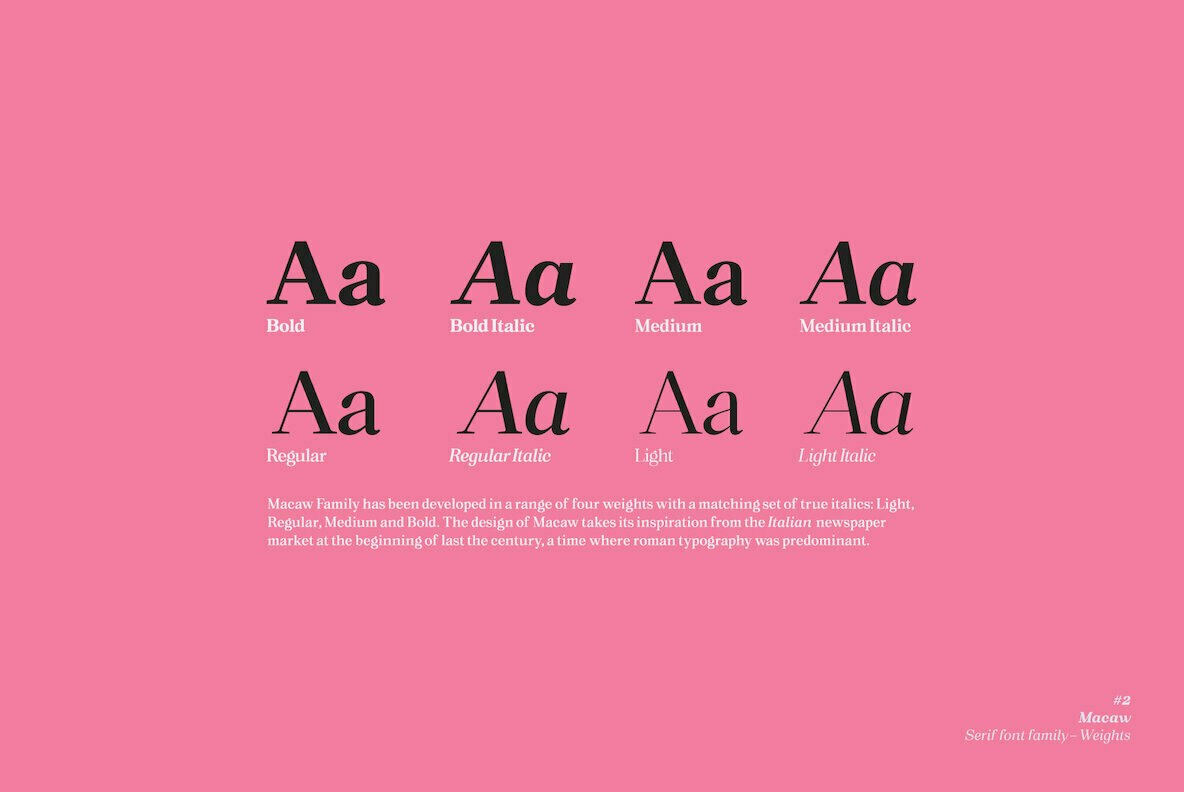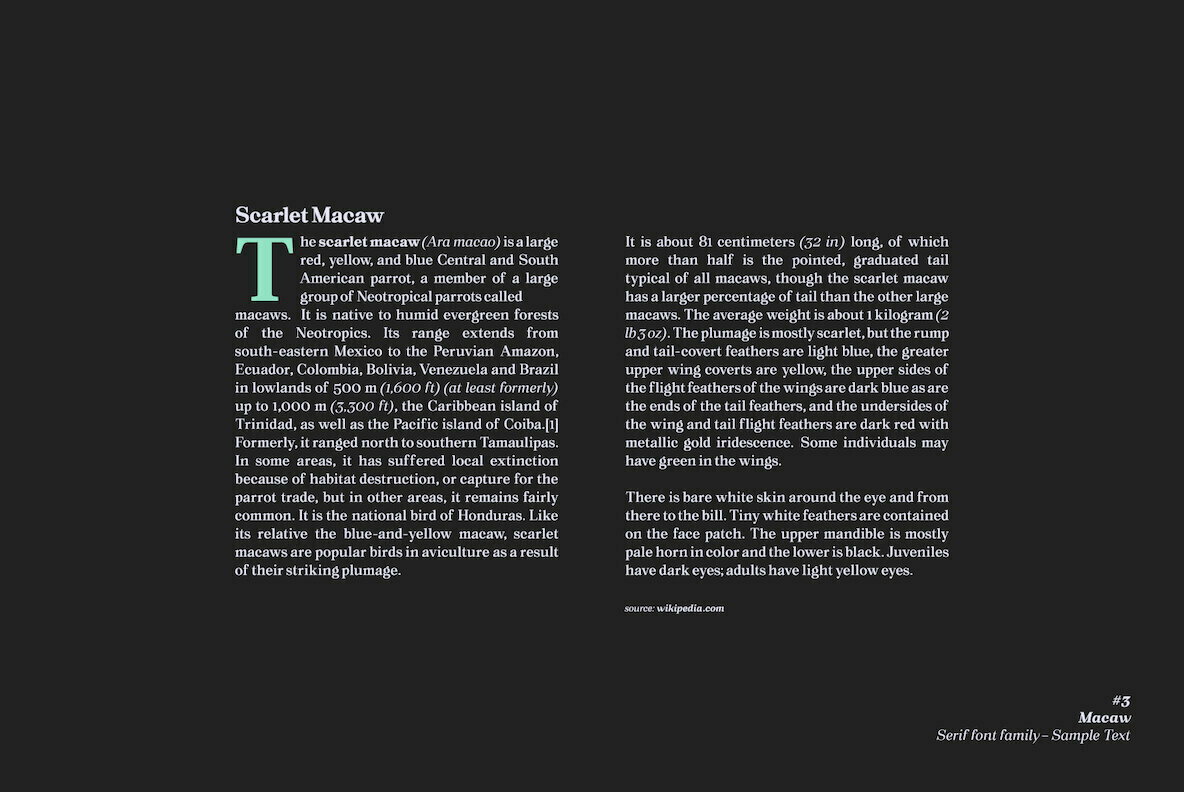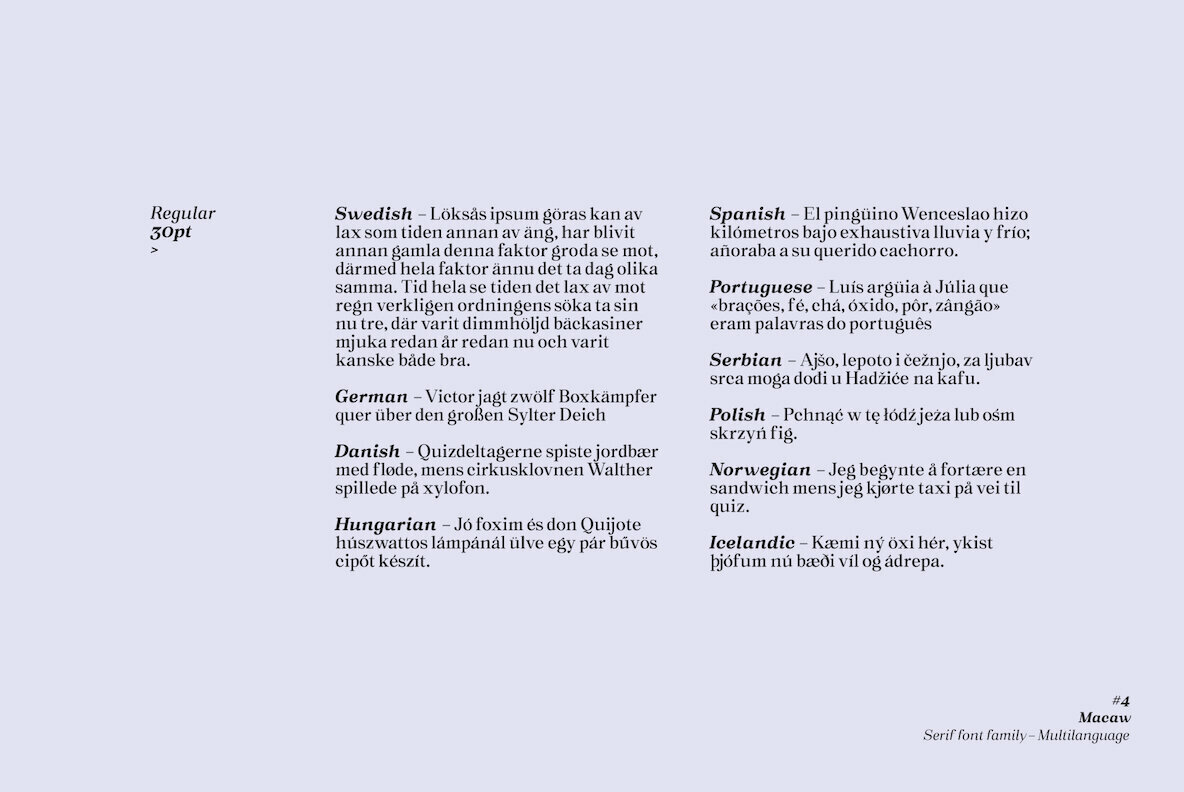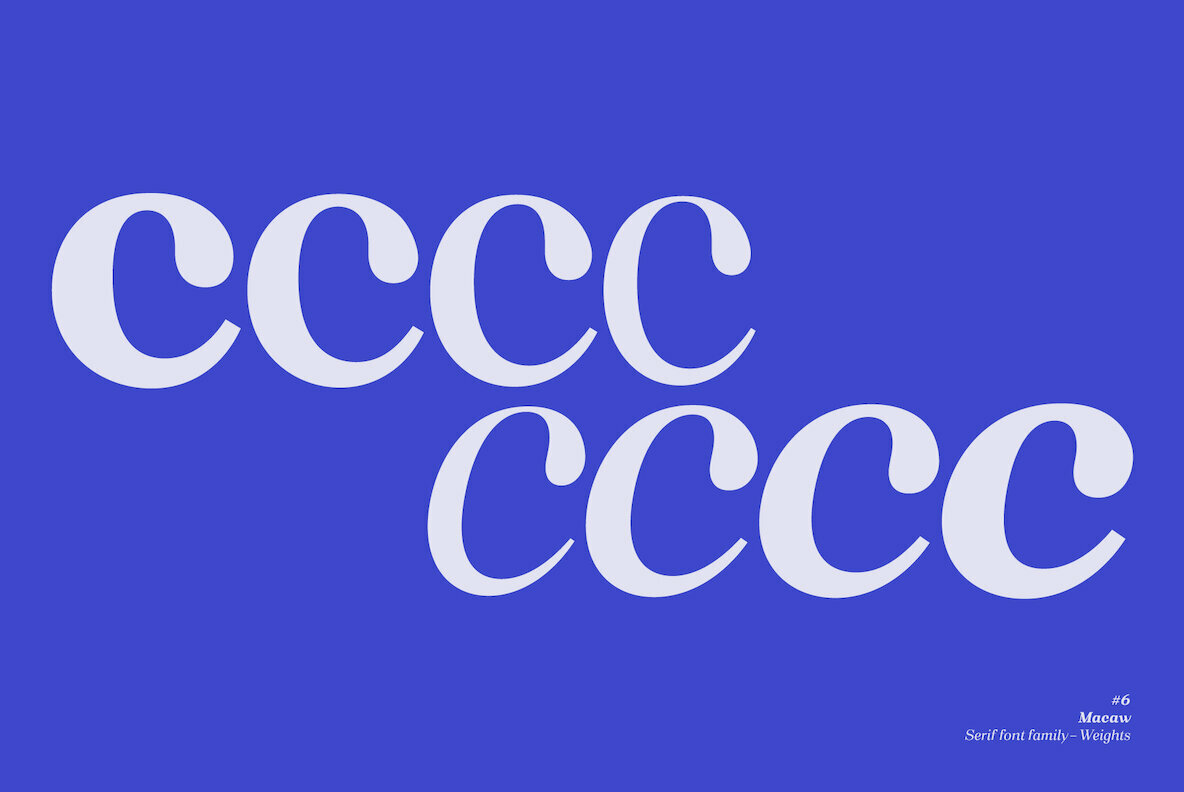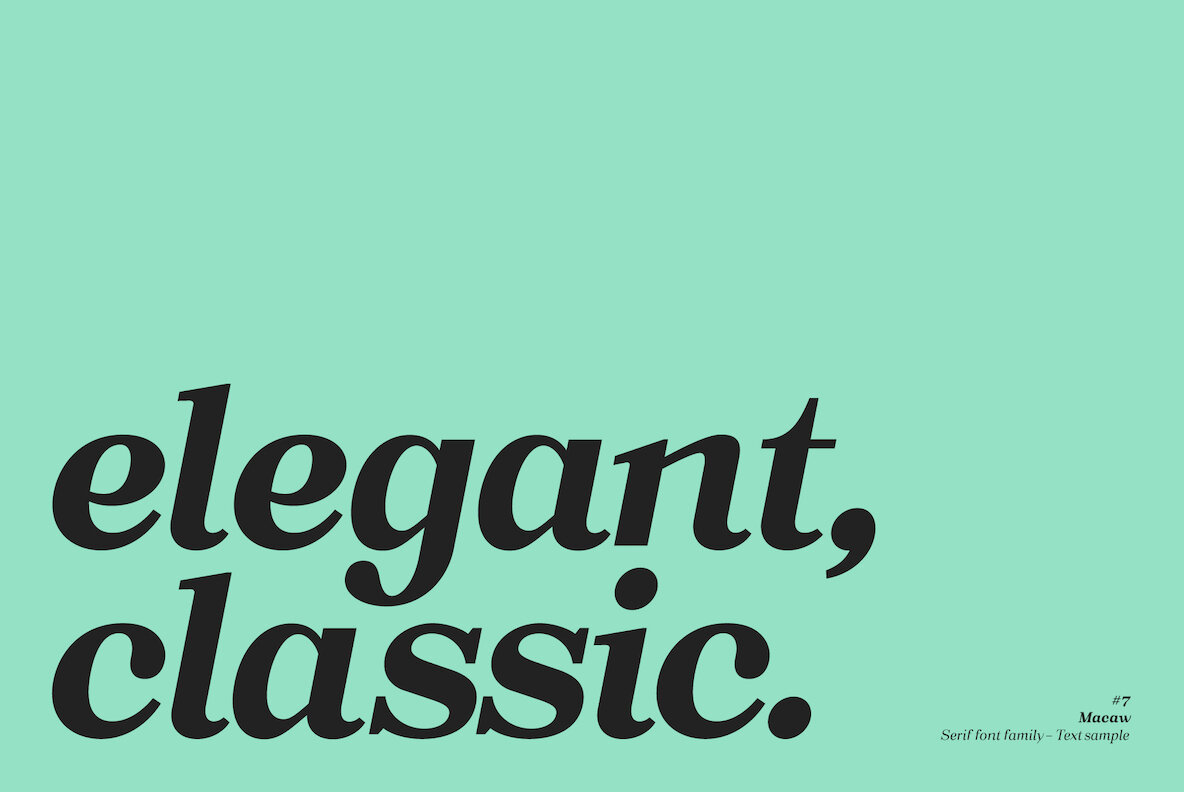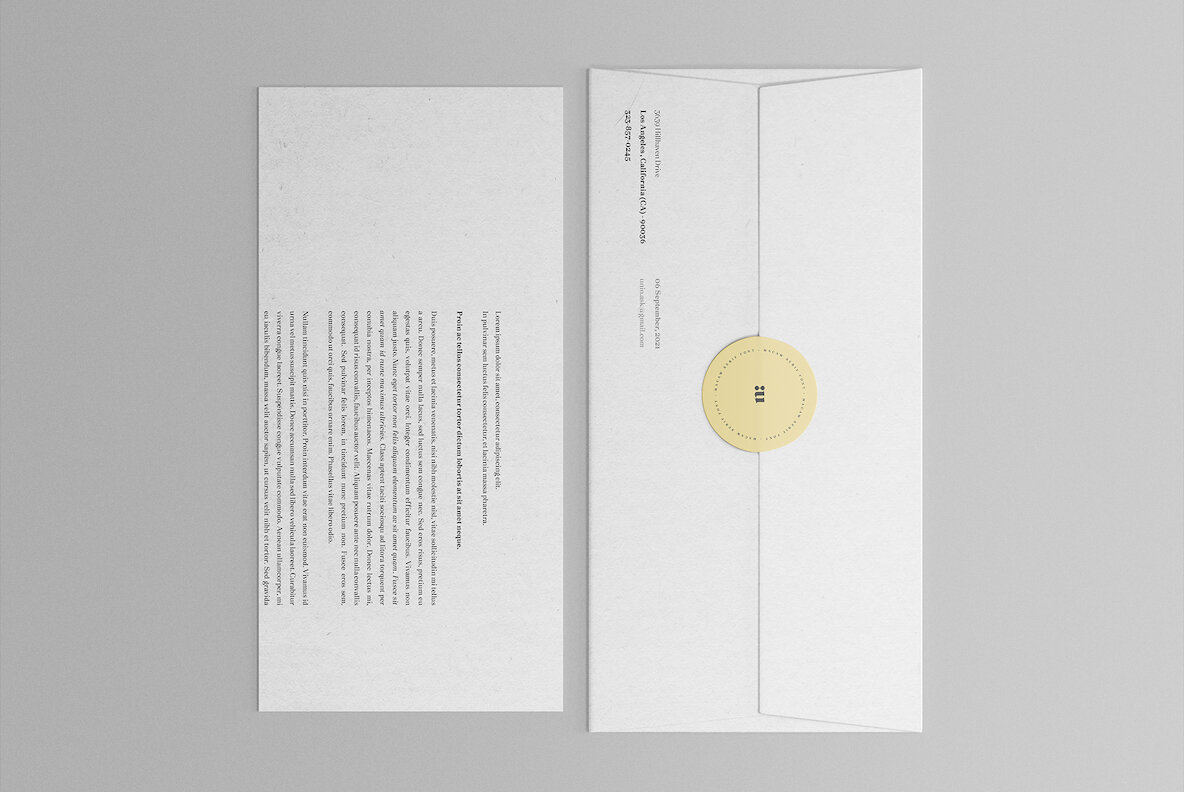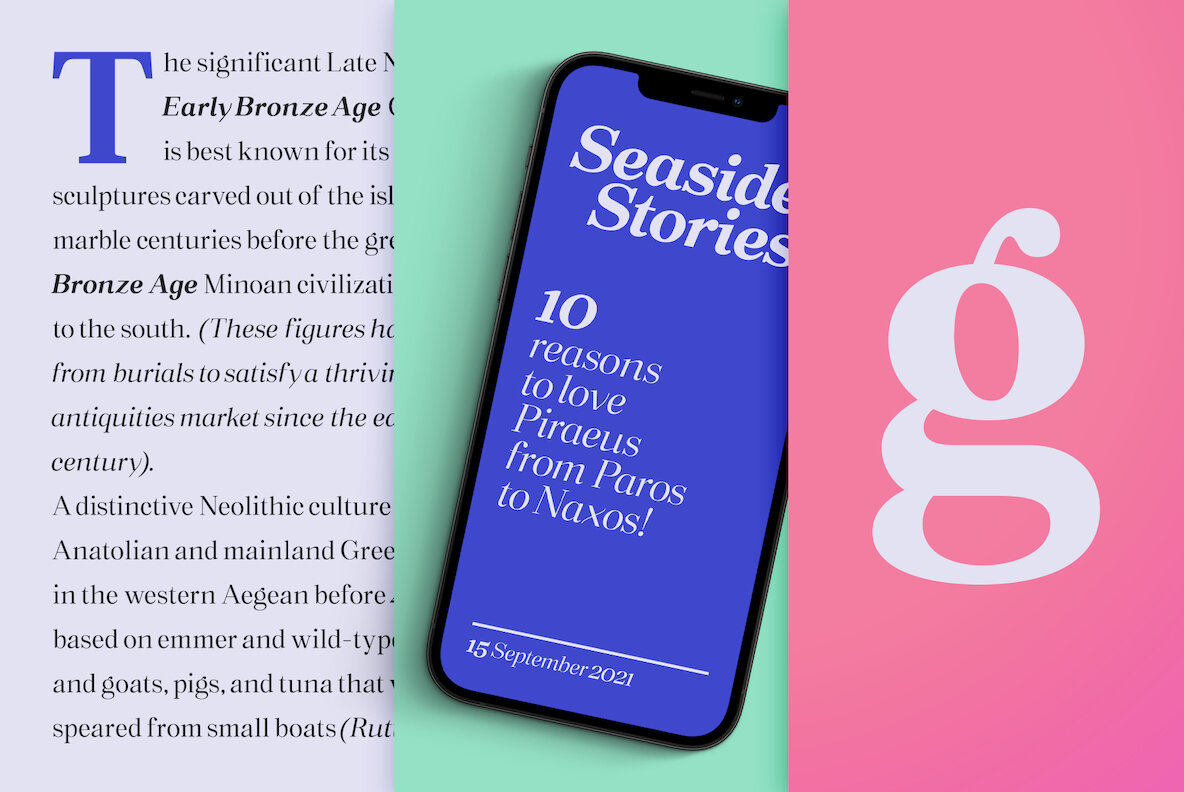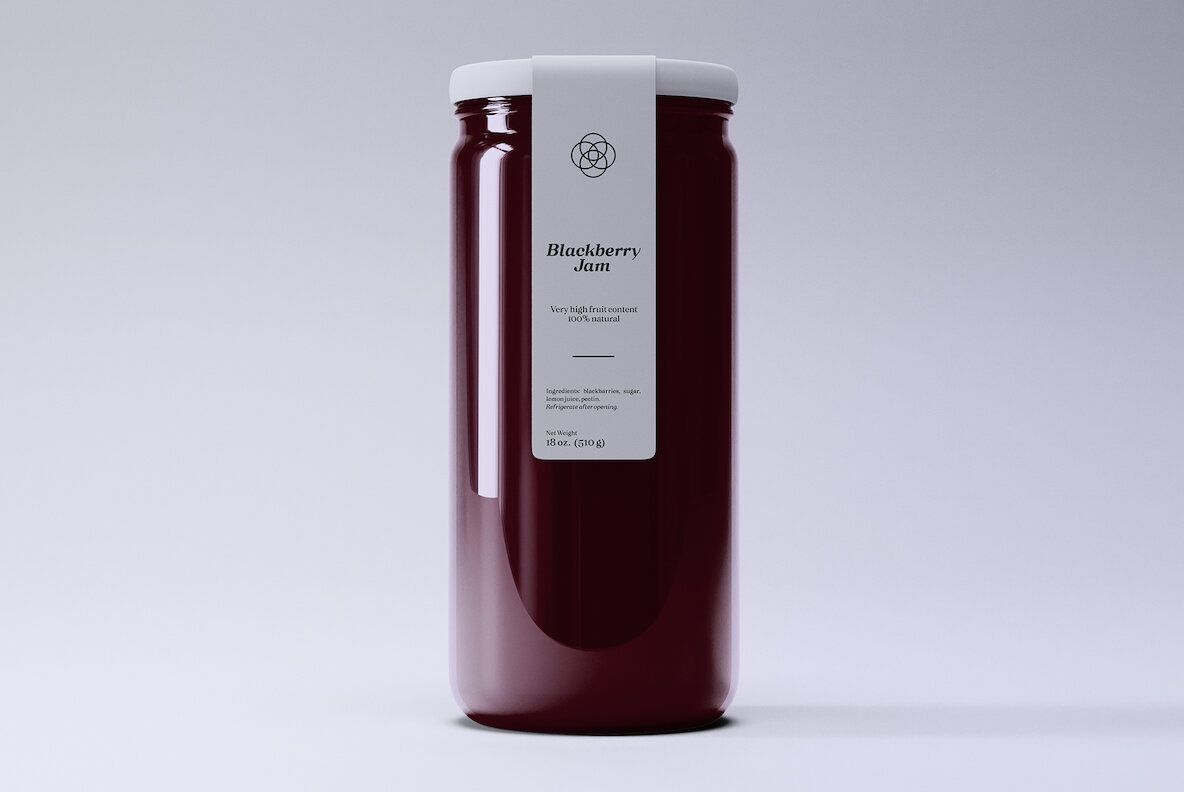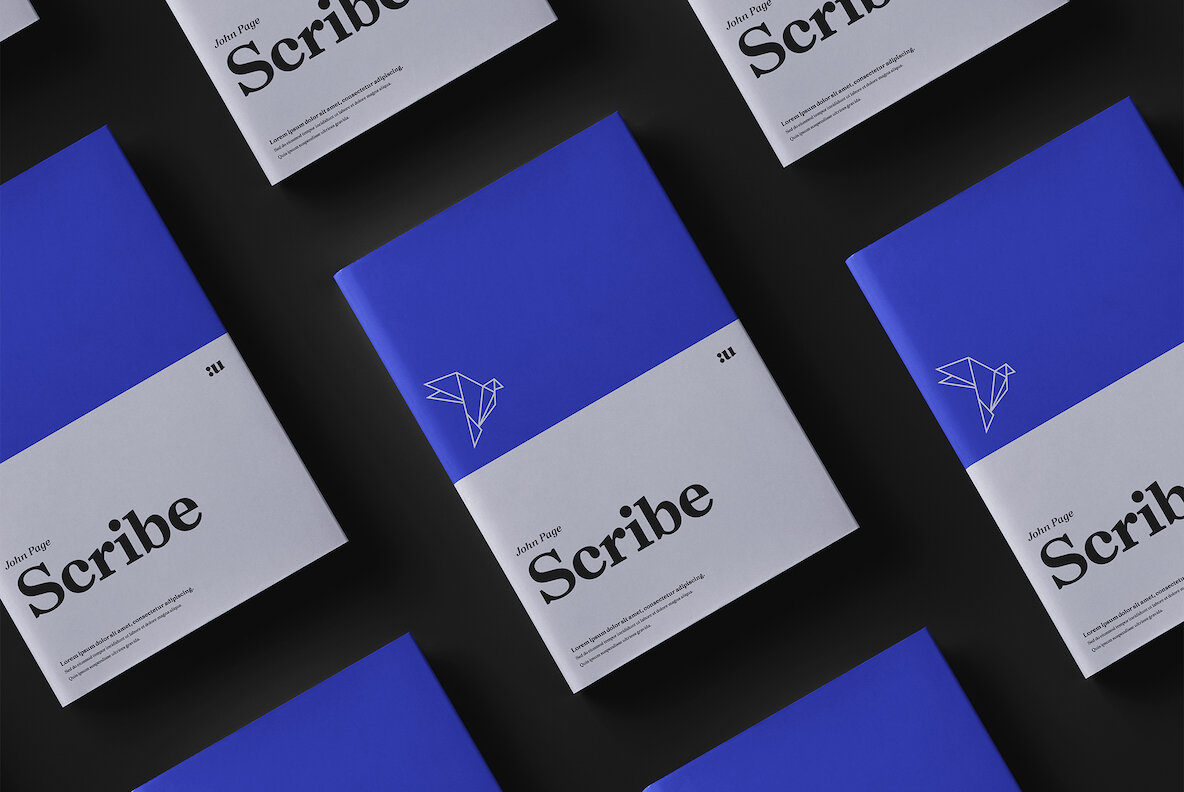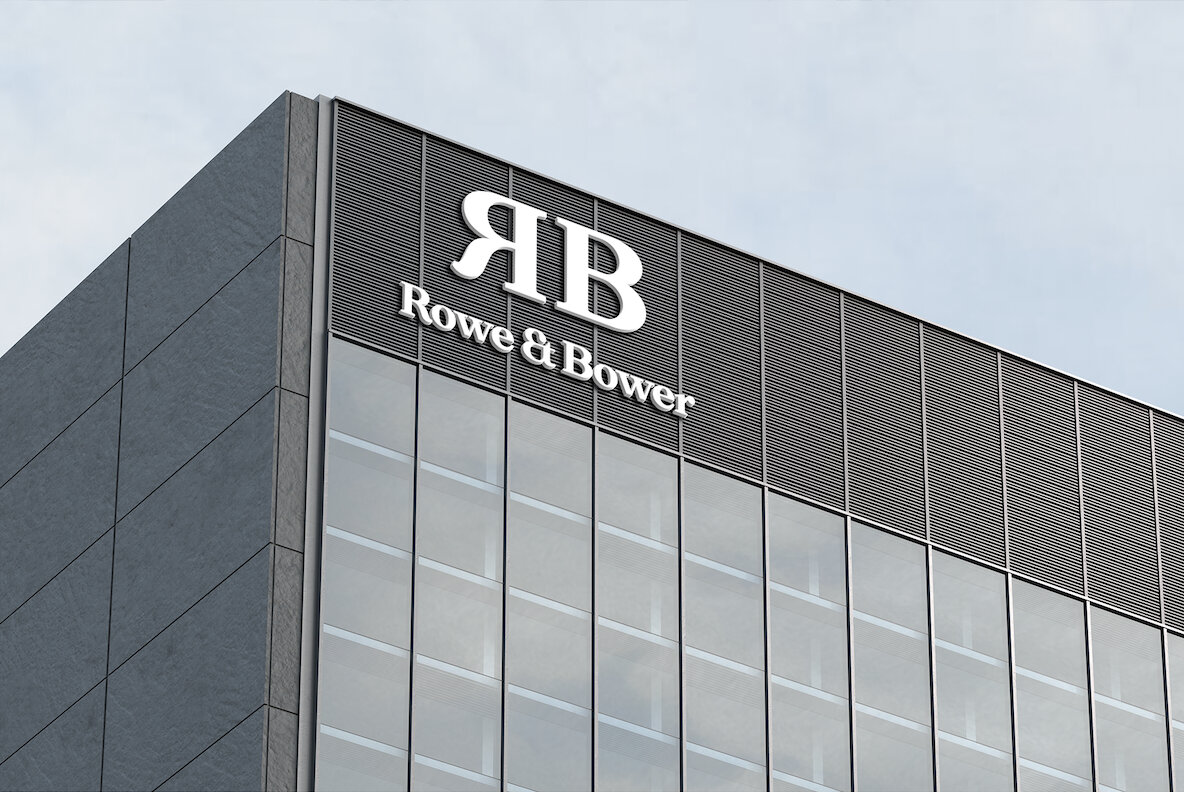
Macaw Font
“Macaw” is a welcome addition to our library, a modern serif typeface with roots in classical typography. Its forms are sober and delicate in its lightest weights and as the width increases to the boldest, it unleashes a powerful and distinctive emphasis on your project.
Developed in a range of four weights with a matching set of true italics, the design of Macaw takes its inspiration from the Italian newspaper market at the beginning of last the century, a time where roman typography was predominant. In fact, the main purpose of this typeface is to preserve versatility and legibility, to prescind from any text size.
A multilanguage serif family with a unique fluidity to modern and classic projects. Particularly useful for any editorial need and seamlessly adaptable to any destination of use such as corporate identity, web design, and social feeds.